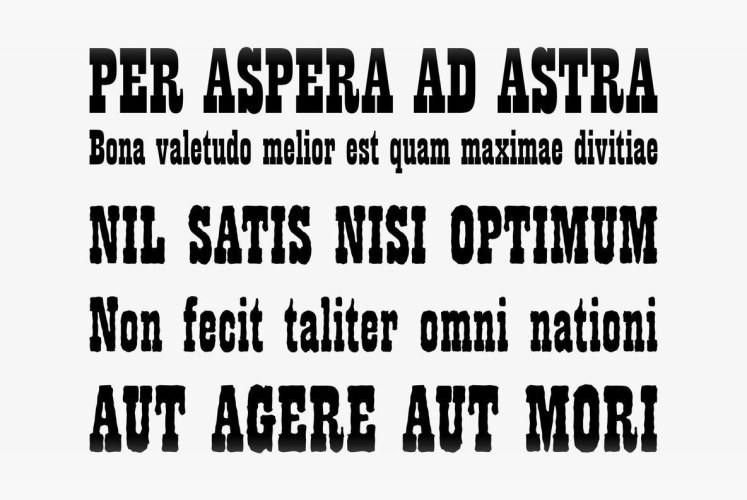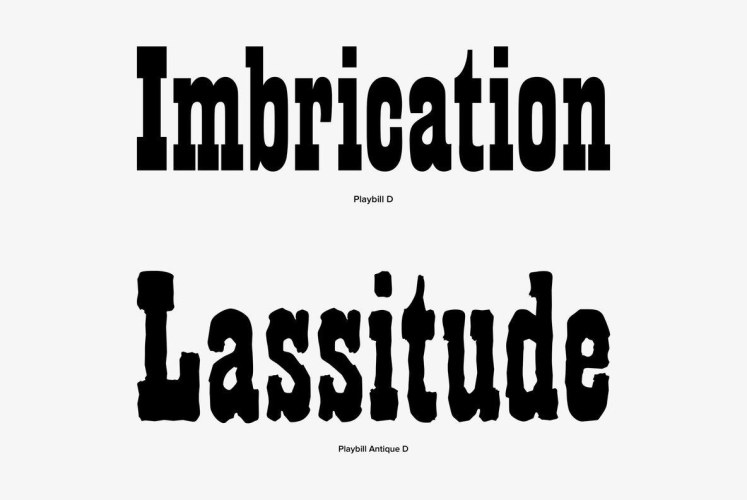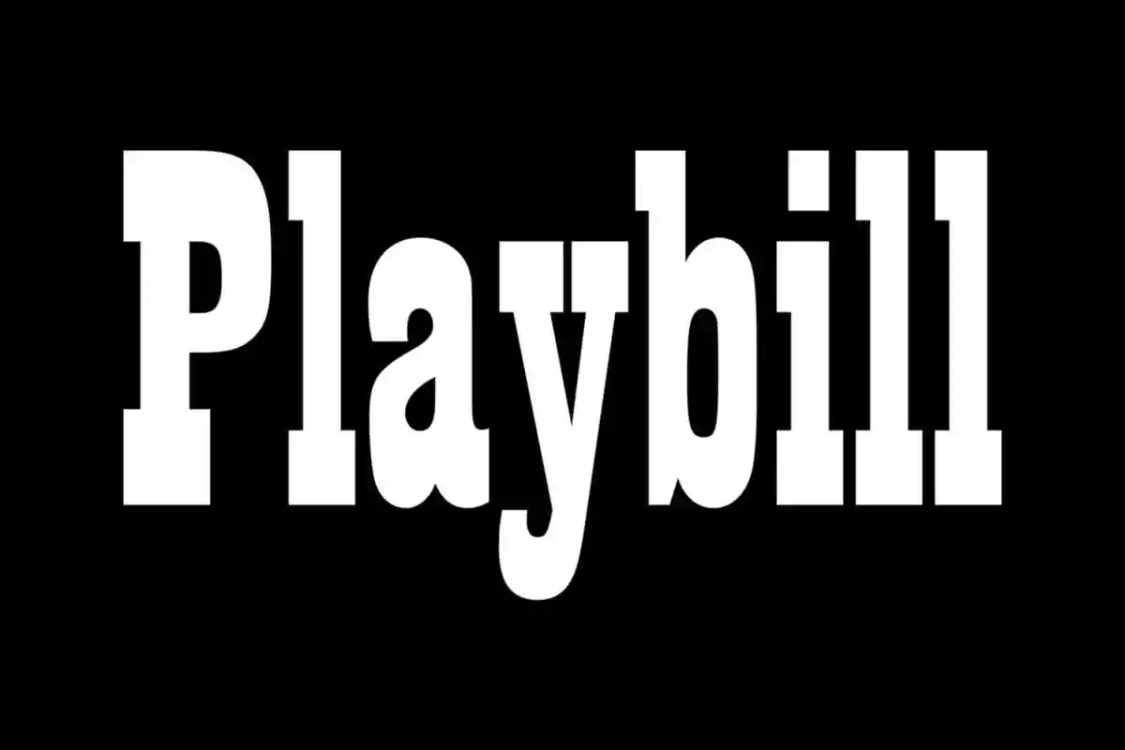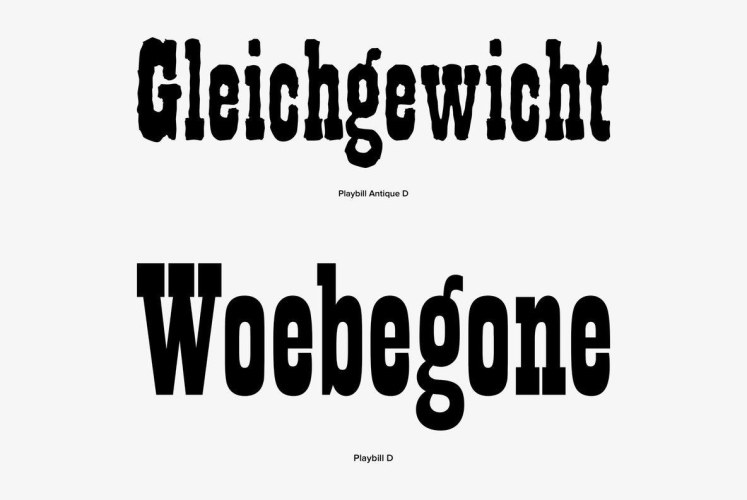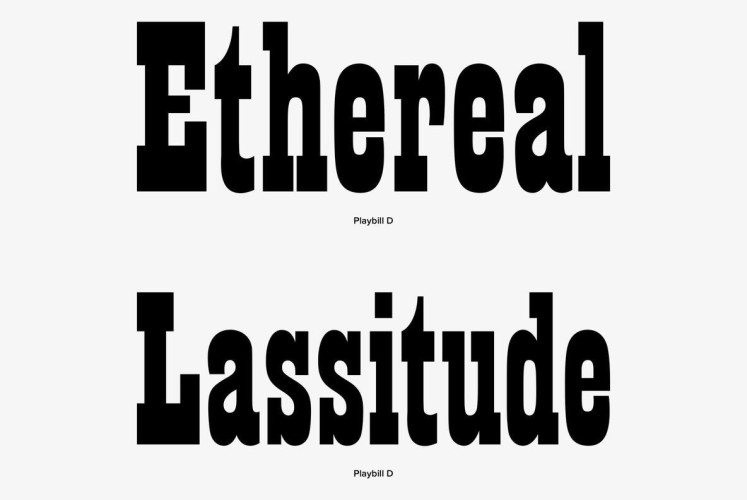
Playbill Font
Playbill is a slab serif font that has etched its place in typographic architecture with its robust and persistent face. Designed by Robert Harling in 1938, this typeface symbolizes strength and expressiveness and remains a preferred choice for headlines, posters, and theatrical announcements.
Specific for its sturdy, square serifs and tidy letterforms, Playbill radiates drama and thrill. Each letter is designed carefully to shine out, captivating attention and uttering the liveliness of the event. By fusing the elements of Pierpont’s design with modern conveniences, Harling can preserve the spirit of the original Playbill.
Playbill’s defining trait is its condensation, which makes a maximum impact in a small area. This condensation gives it its distinguished look and, therefore, makes it ideal for conveying the dramatic nature of the print. Playbill’s solid strokes and sharp serif guarantee its readability even at large sizes, making it a versatile typeface for both digital and print.
Although it initially started as a tool used in theatrical programs, Playbill has become more than that and has found application in various design applications. Its expressive and bold nature makes it an excellent choice for branding, advertising, and editorial design, where it can inject colour and motion into projects.
As the designers recreate and enhance the classic Playbills, audiences are distracted by Broadway’s magnificence and live shows’ excitement. The enduring popularity and adaptability have always assured Calligraphy a spot in the designer’s arsenal; therefore, it will not cease to impact the design scene.